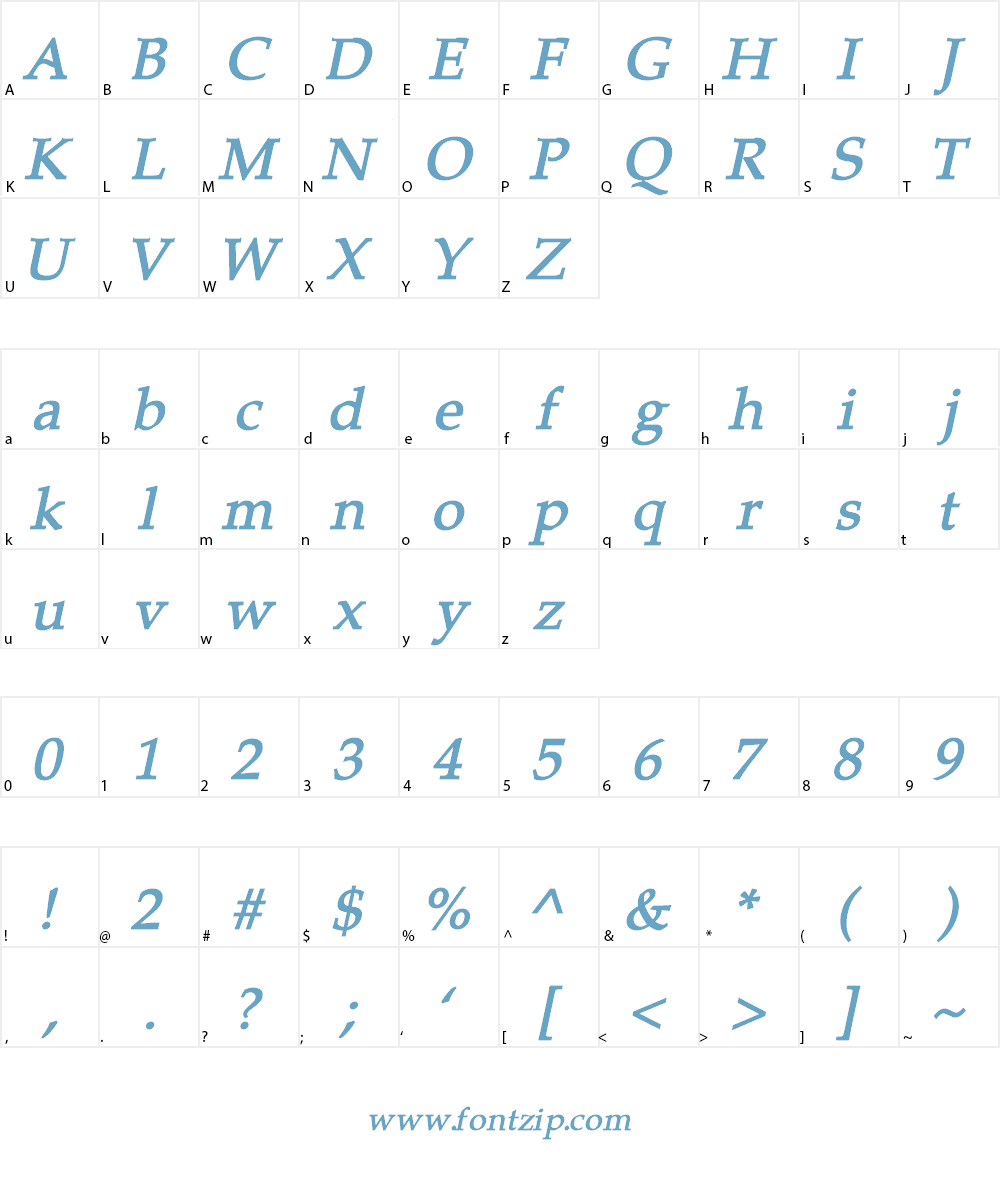
Portland LDO is a serifed typeface based on Palatino, but slightly thinner with low descenders, a reworked “A”, and new metrics and kerning.
This face should please both traditionalists and modernists who demand a serifed typeface with both a classical and a modern feel.